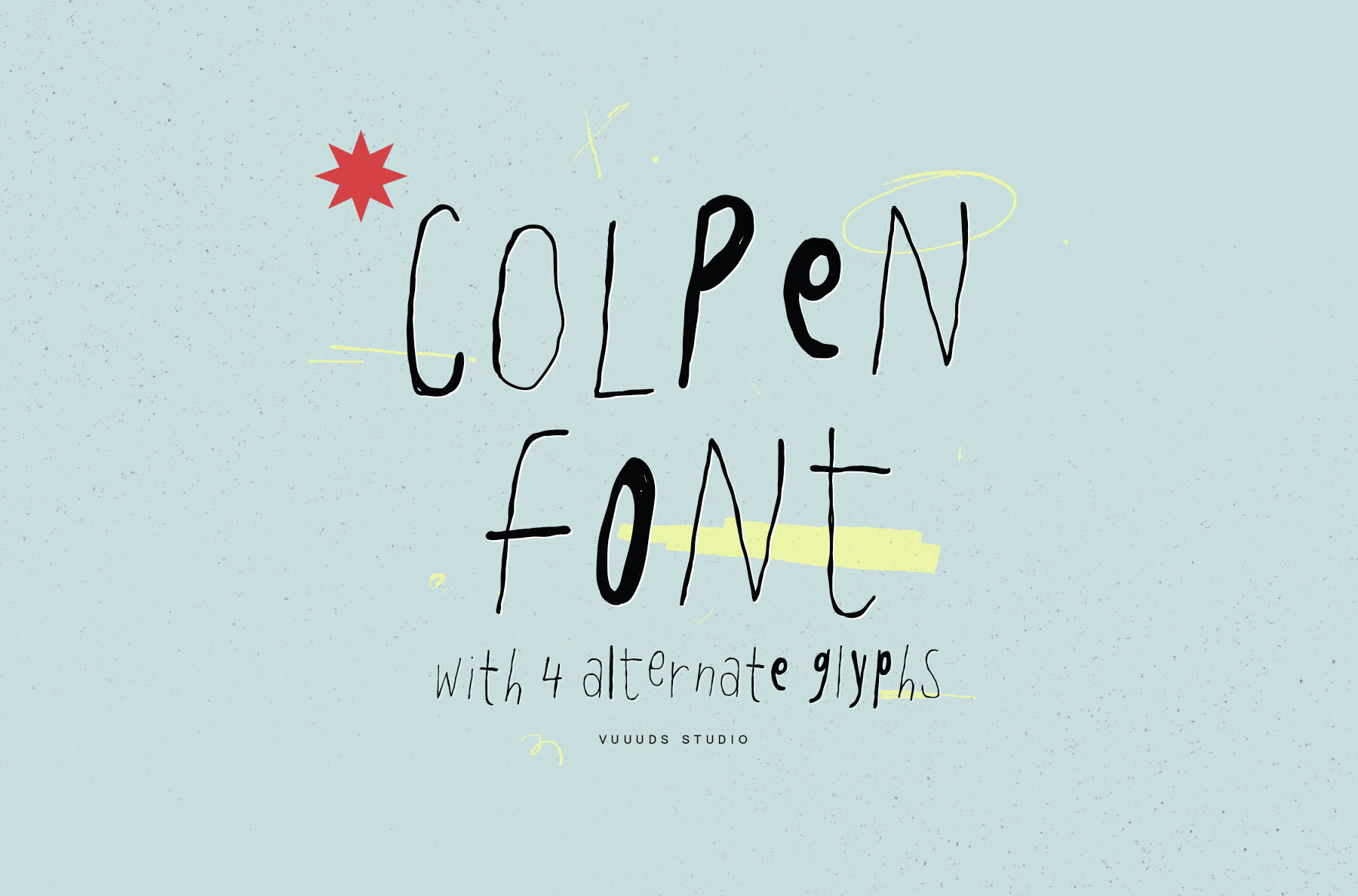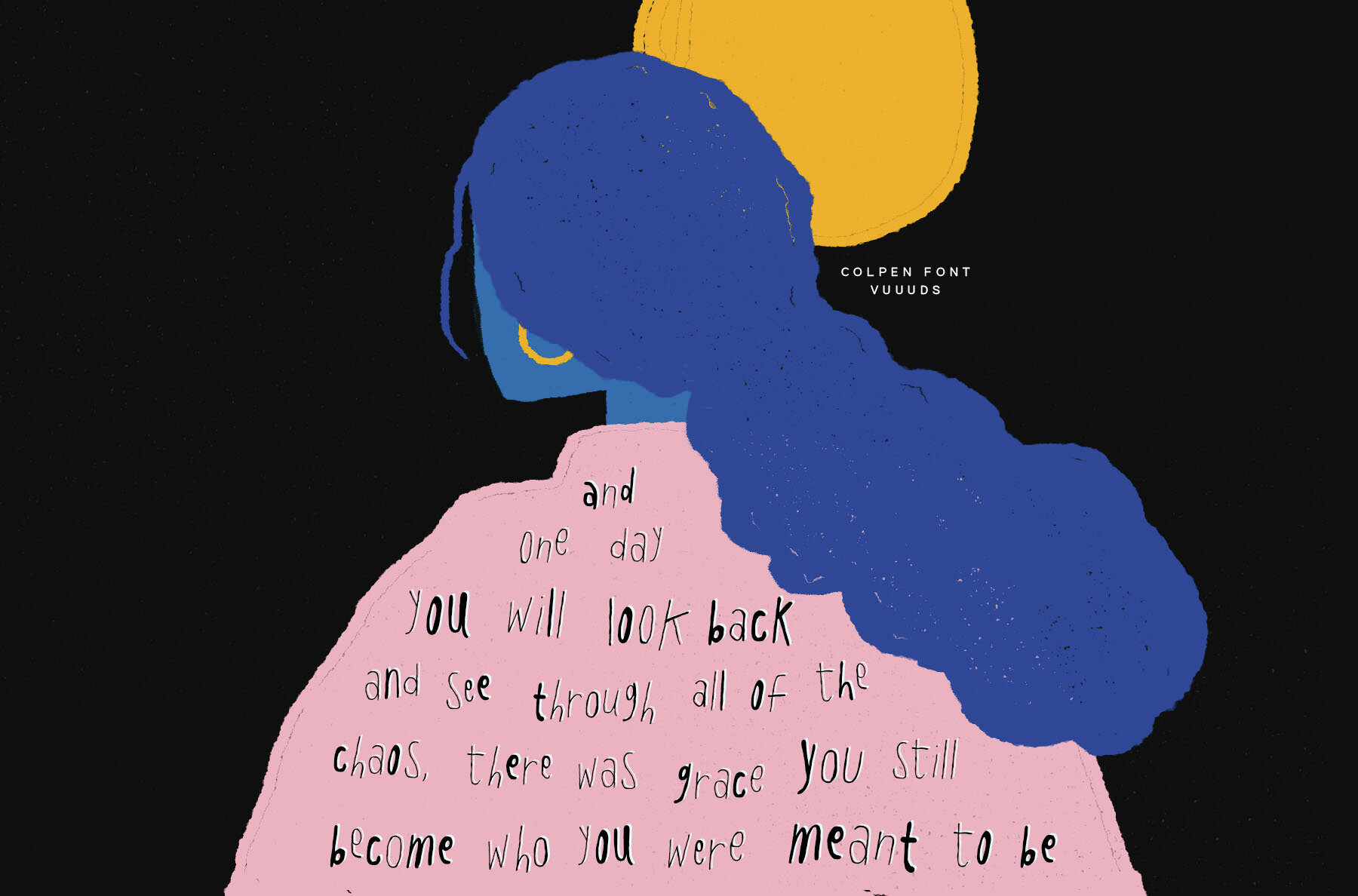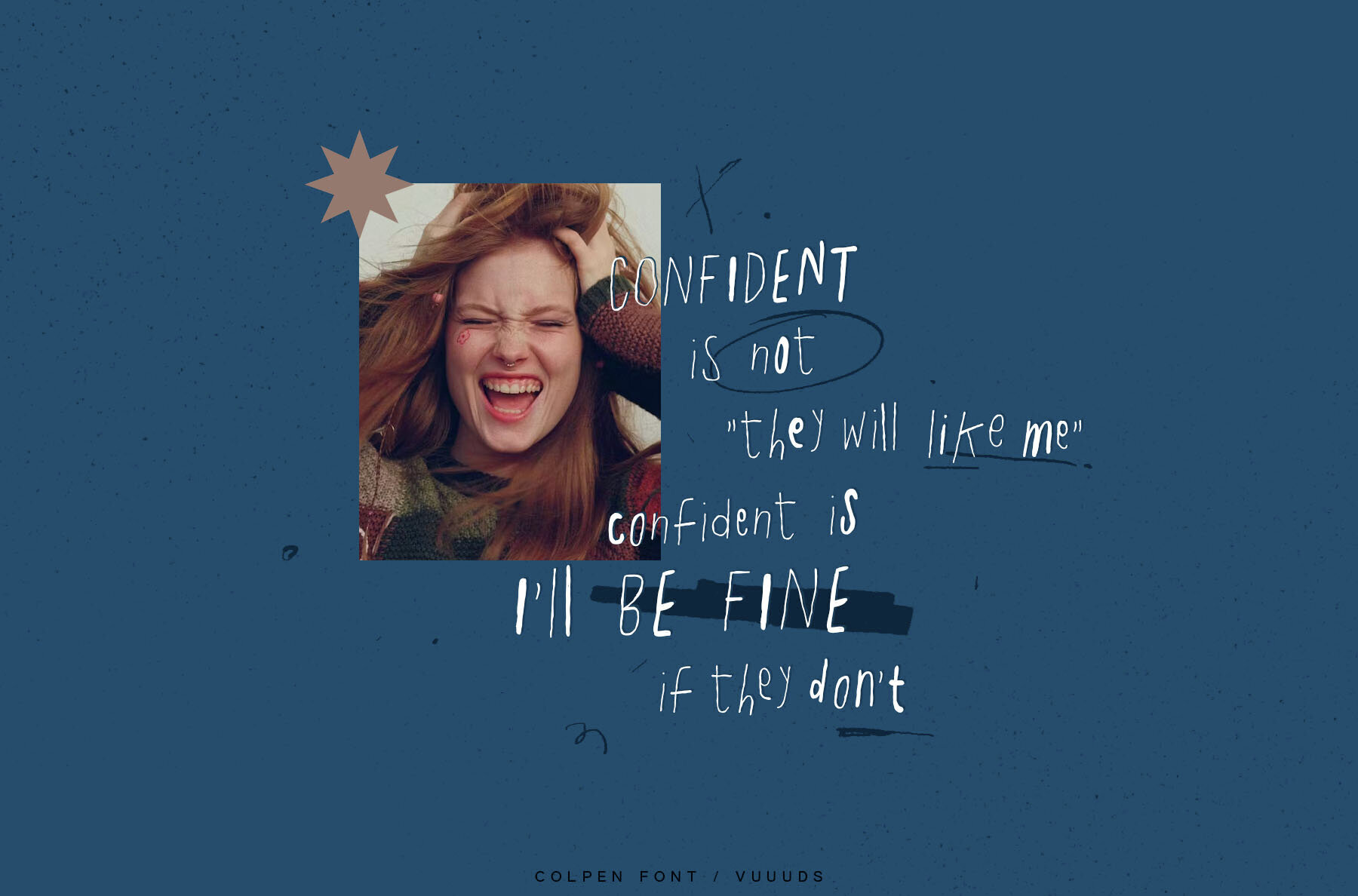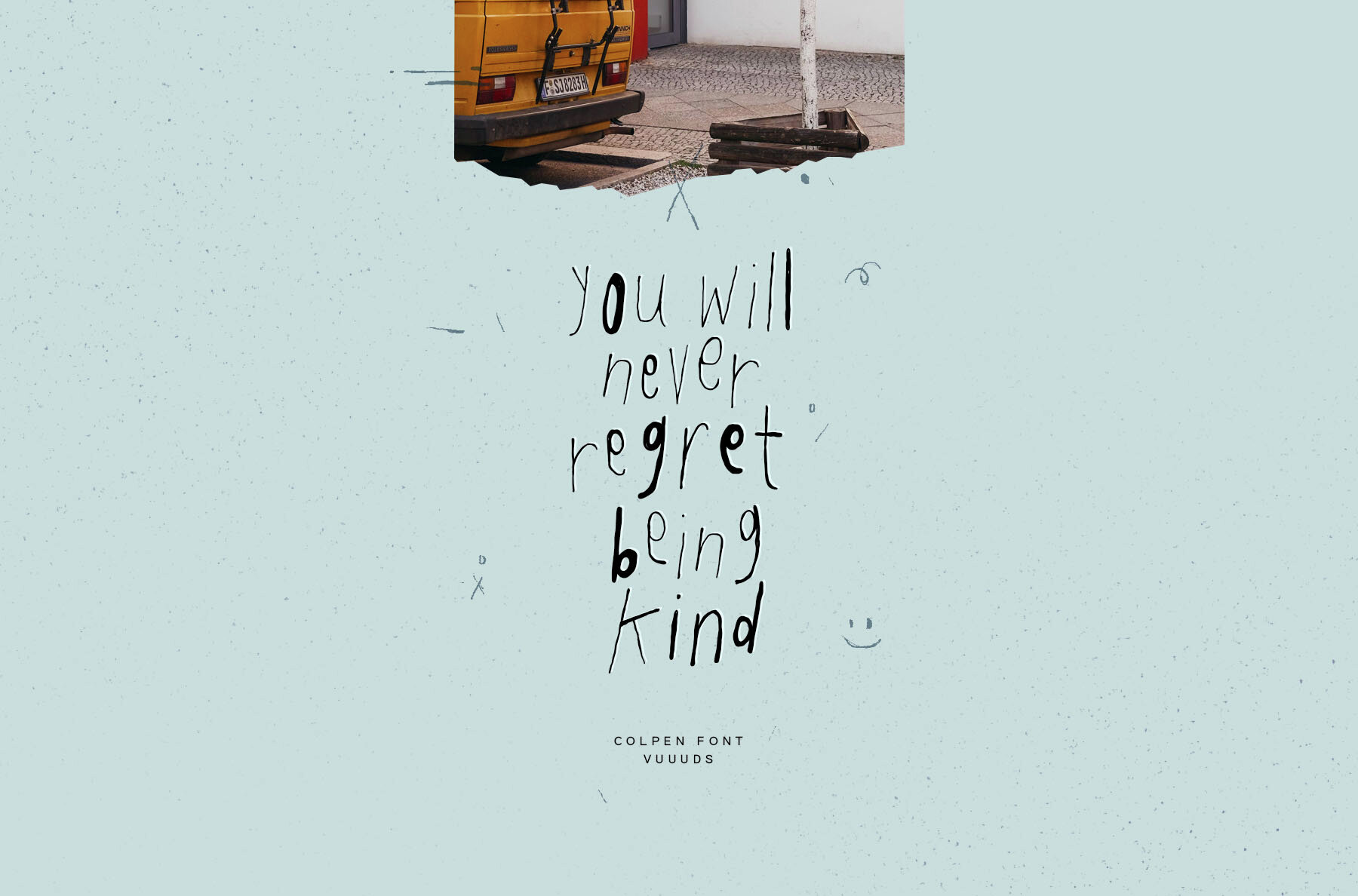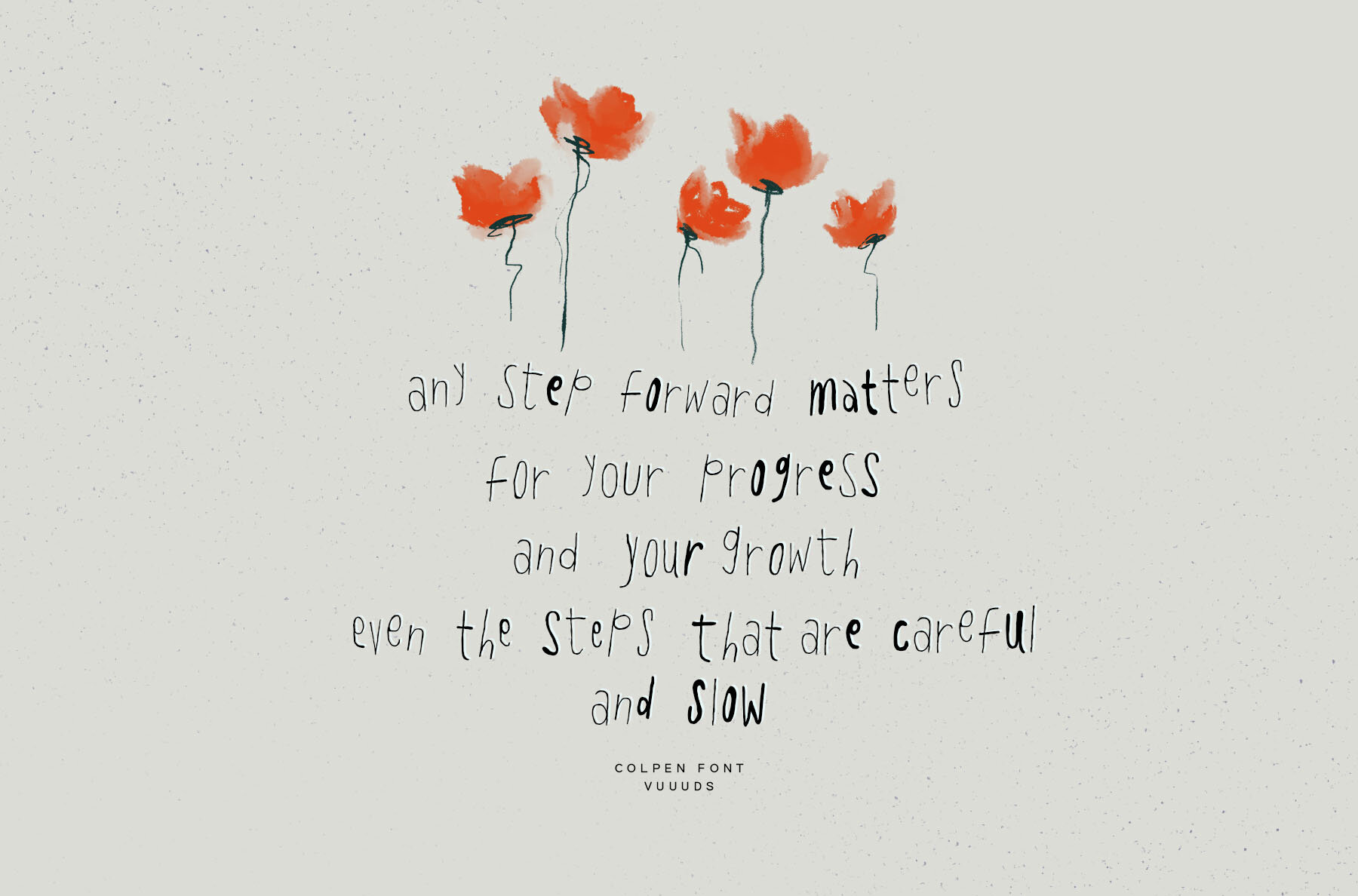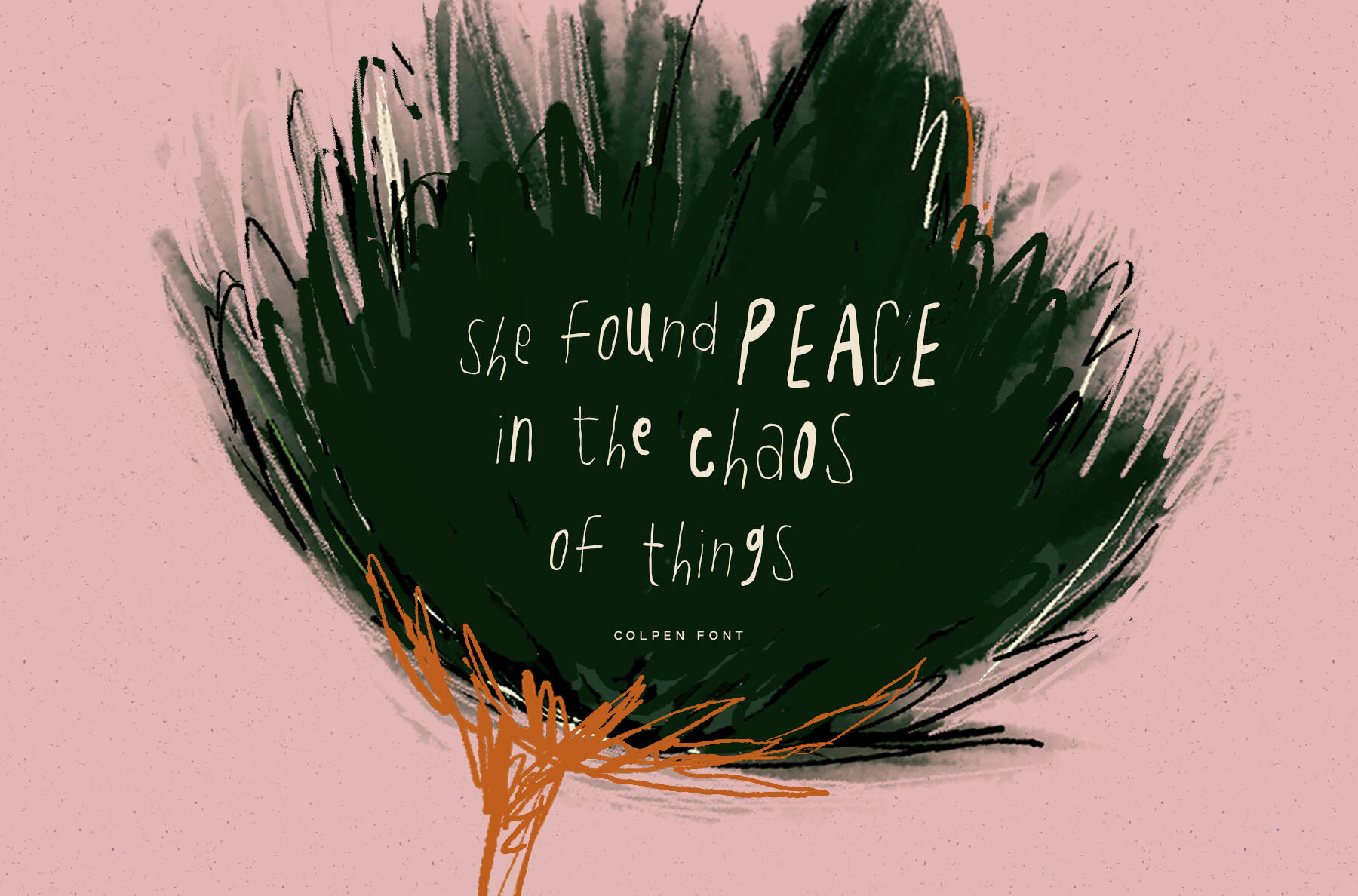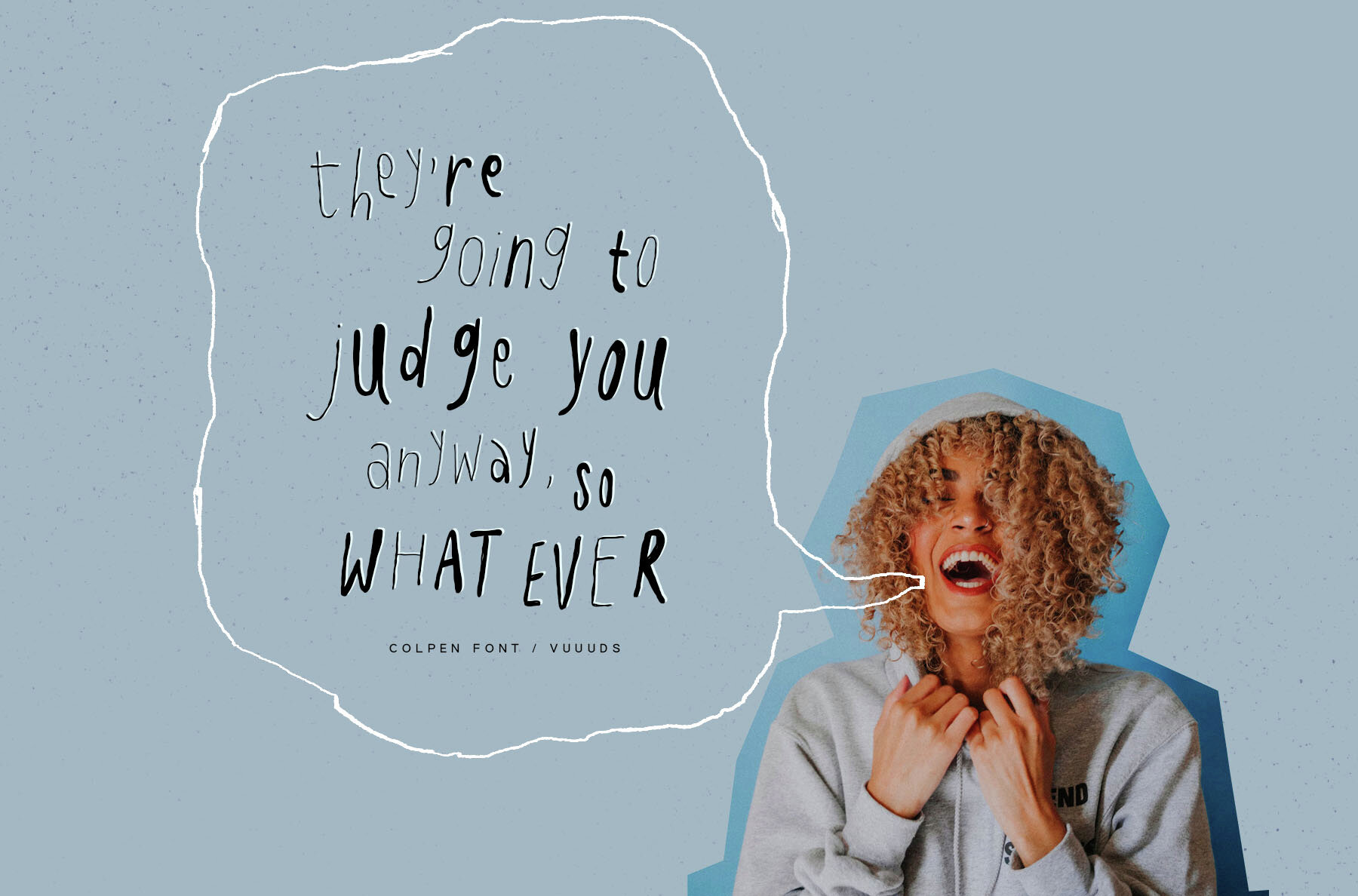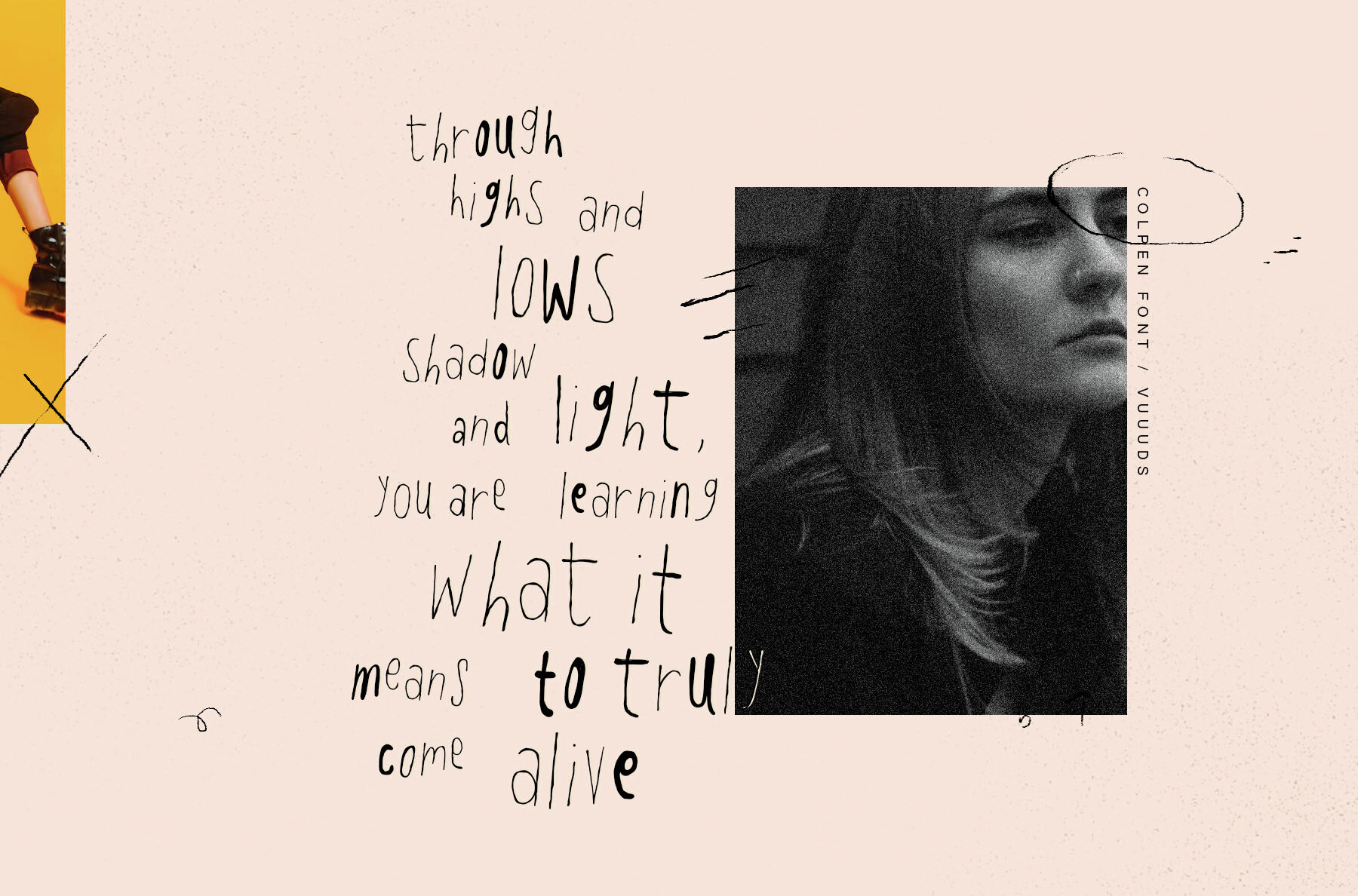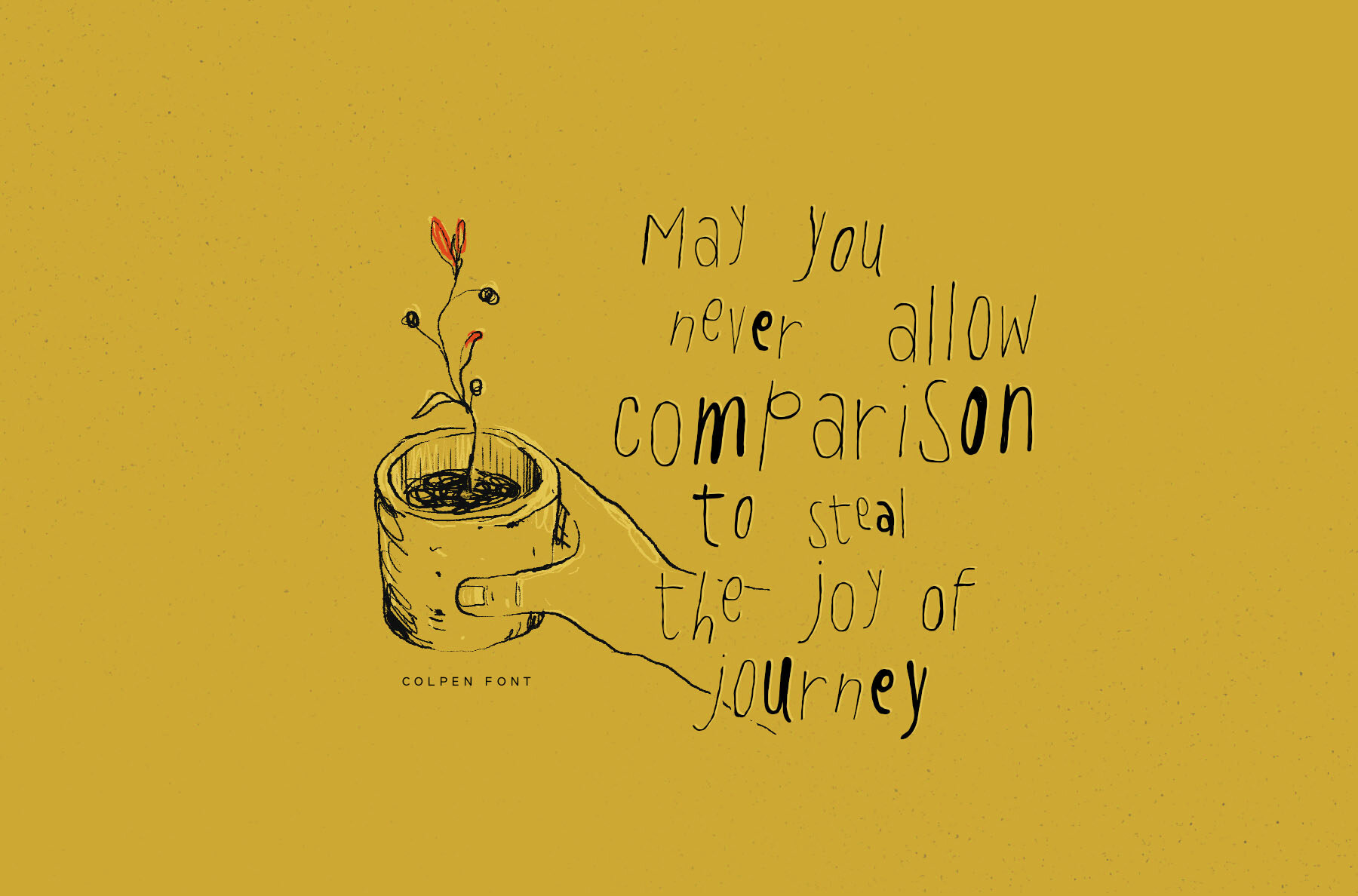
Colpen: Experimental Handwritten Font with Unique Characters
Colpen is a uniquely crafted experimental handwritten font, where every character is individually designed to stand out.
Features and Access
Colpen supports a range of foreign languages, ensuring broad usability.
• Latin-1 Supplement
• Extended Latin Characters